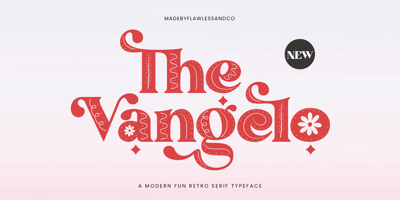
The Vangelo Font Family was designed by Achmad Yani and published by Flawlessandco. The Vangelo contains 2 styles and family package options. Introducing “The Vangelo” – A Modern Fun Retro Serif Typeface. Embrace the charm of the past with a contemporary twist through “The Vangelo,” a font that effortlessly marries retro aesthetics with modern flair. This font has of two distinctive styles – Regular and Fun — adorned with patterns in fun styles that add an extra layer of delight to your designs. This serif typeface is more than letters on a page; it’s a journey into a world where every curve and line tells a story of both nostalgia and innovation.There’s some connected letters and some alternates that suitable for any graphic designs such as branding materials, t-shirt, print, business cards, logo, poster, t-shirt, photography, quotes .etcThis font support for some multilingual. Also contains uppercase A-Z and lowercase a-z, alternate character, numbers 0-9, and some punctuation.If you need help, just write me! Thanks so much for checking out my shop!